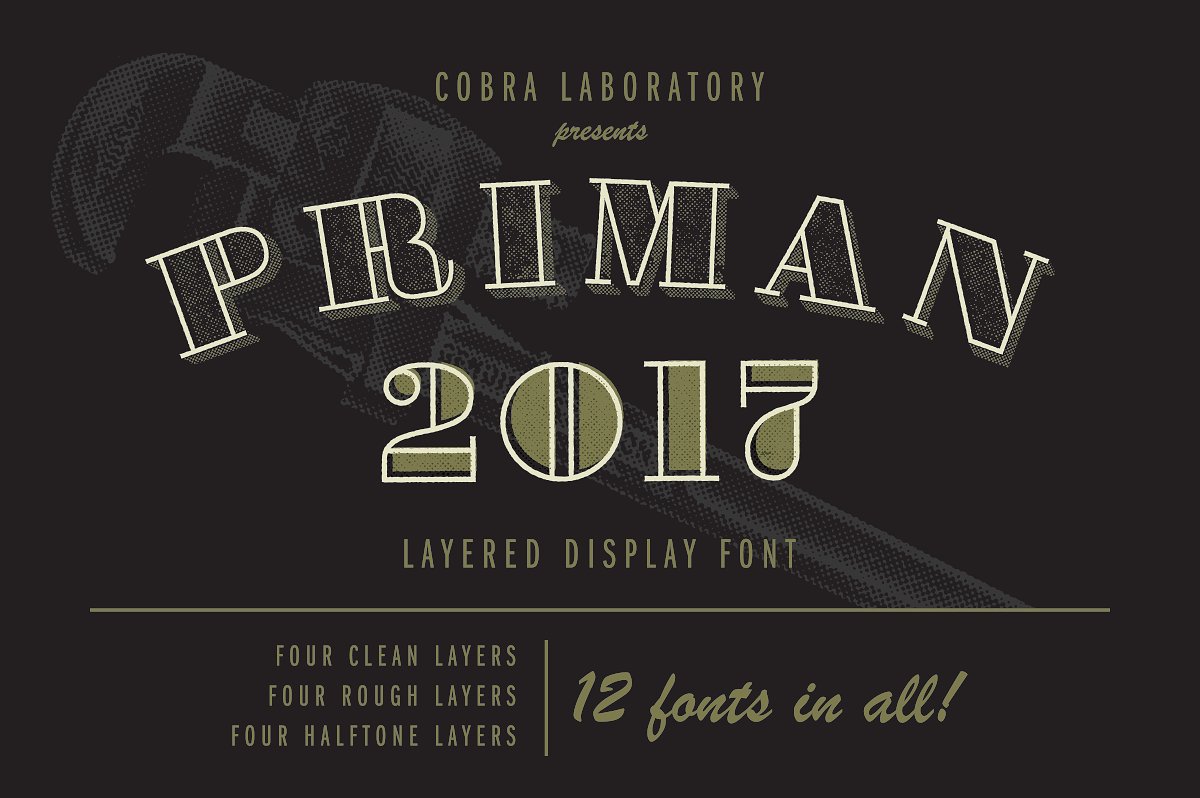
Priman Layered Display Font
Priman is good anyplace you’d like a fat serif type with a bit more personality. I’ve included a guide with some layering ideas, but there are many more possibilities.